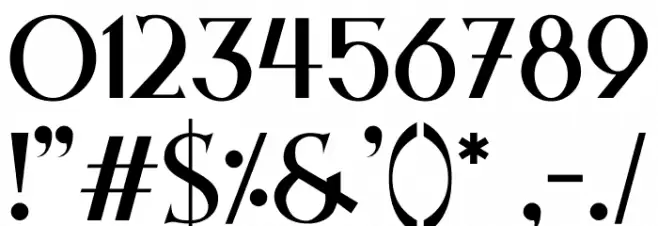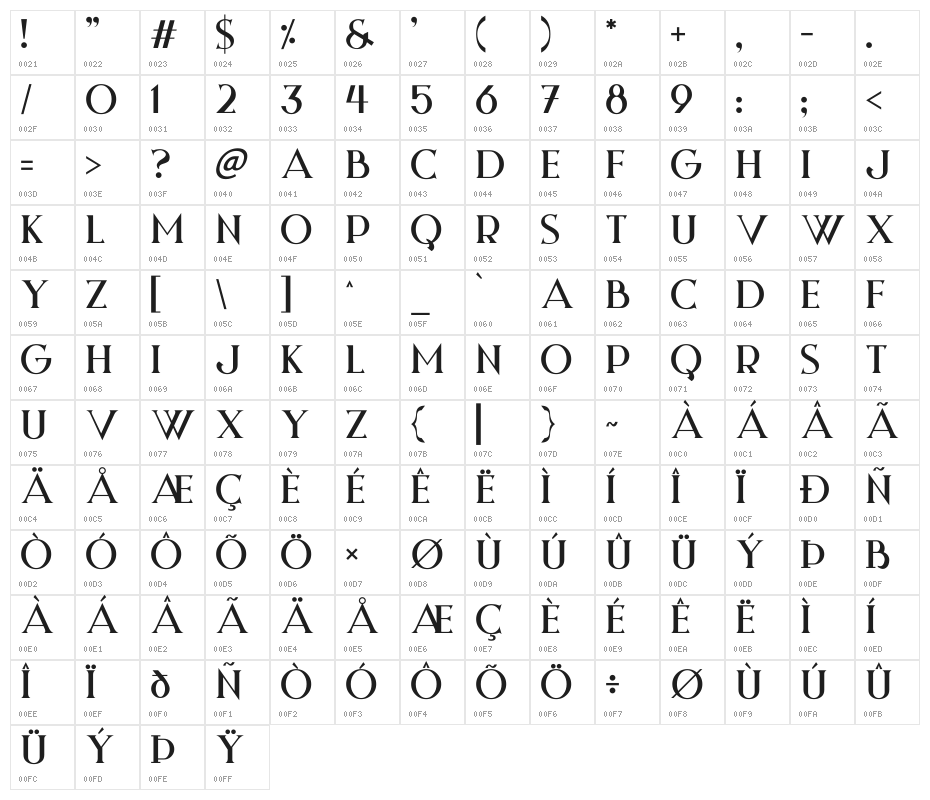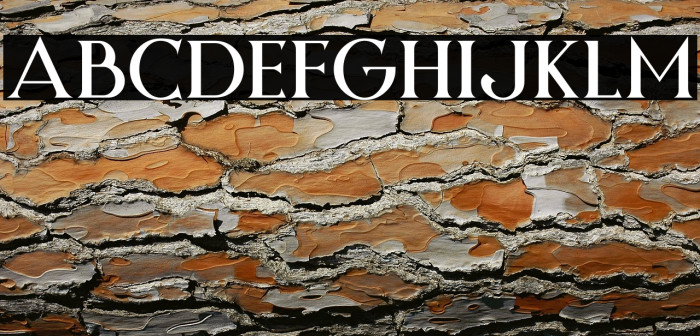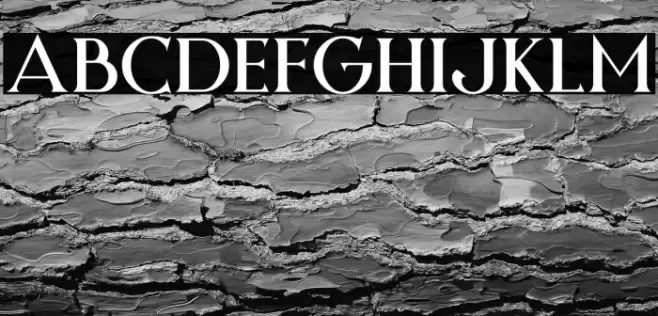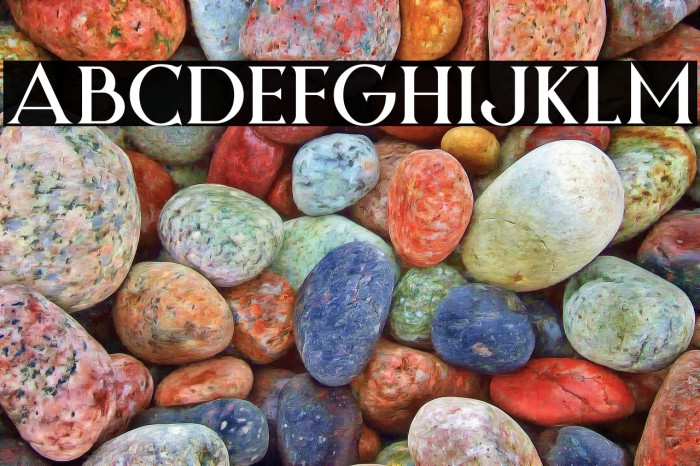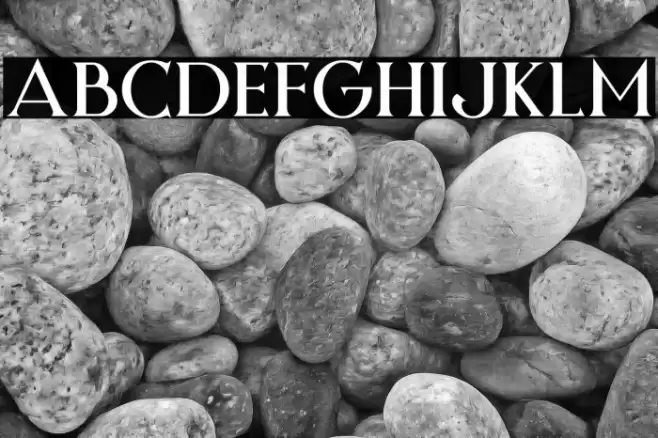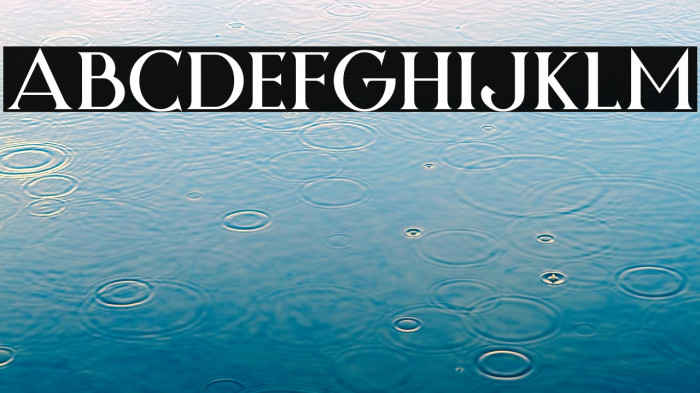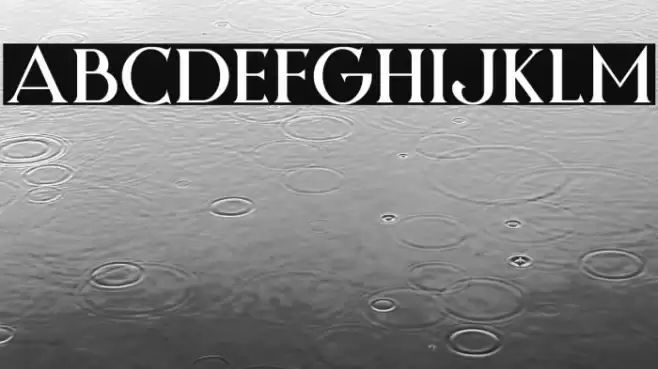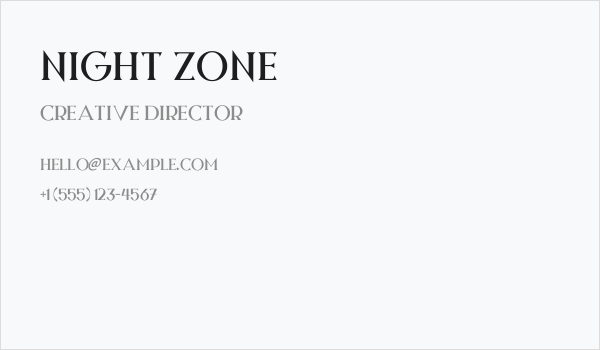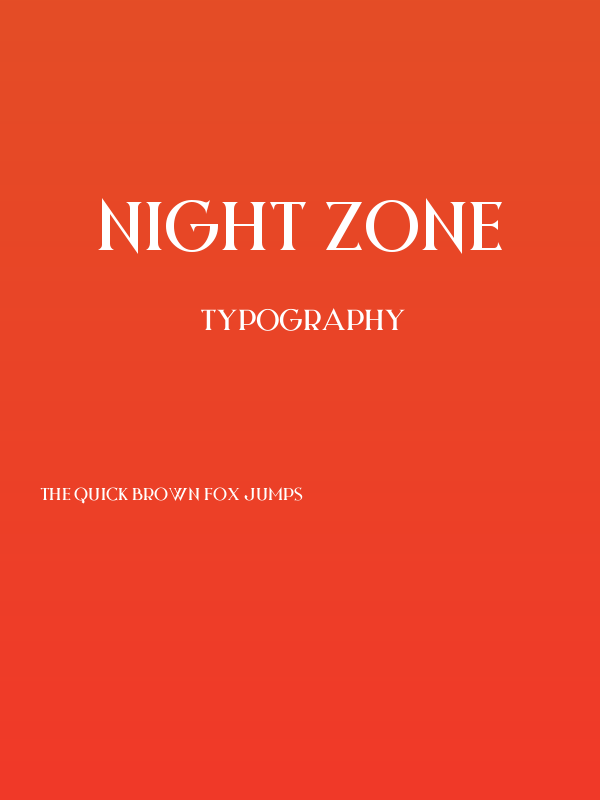
Night Zone Font
Night Zone Description
This font features a bold and dramatic style with high contrast between thick and thin strokes, giving it a striking and elegant appearance. The serifs are sharp and pronounced, adding a touch of sophistication. The uppercase letters are tall and commanding, while the lowercase letters maintain a consistent style with slightly rounded edges. The numerals are distinct and clear, with a modern flair. Special characters are designed with the same attention to detail, ensuring a cohesive look across all glyphs. This font is ideal for making a strong visual impact.
| Proposed Projects | Ideal for luxury branding, editorial design, book covers, and high-end product packaging. |